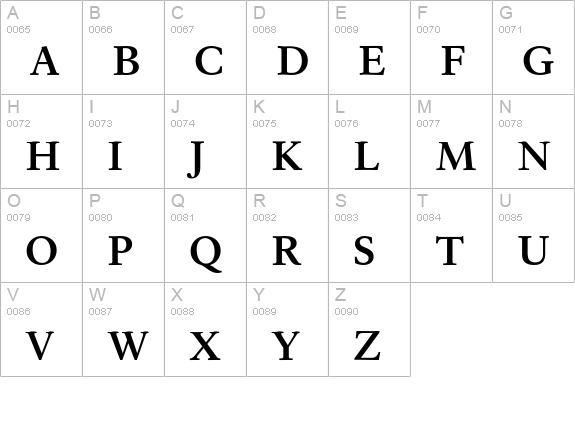
Rawlinson Bold is a strong, high-contrast variant in the Rawlinson typeface family \xE2\x80\x94 well suited to headlines, attention-grabbing titles, and strong calls-to-action.
Rawlinson Bold is a visually striking and versatile typeface that commands attention with its bold and powerful presence. Its strong and clean lines exude confidence and authority, making it an ideal choice for titles, headlines, and logos. With its robust and distinctive letterforms, Rawlinson Bold is designed to make a statement in any design project. Its thick strokes and sharp angles create a sense of strength and solidity, while still maintaining a sense of elegance and sophistication. This font's wide range of characters allows for endless creative possibilities. From bold and impactful designs to sleek and contemporary compositions, Rawlinson Bold has the versatility to adapt to any aesthetic or brand identity. One of the best things about Rawlinson Bold is that it is freely available for download at FontsMarket.com. This means that you can easily access and utilize this stunning typeface without any cost or hassle. Whether you are a professional designer or a creative enthusiast, Rawlinson Bold offers a high-quality and visually appealing option that won't break the bank. So why wait? Give your designs the edge they deserve with Rawlinson Bold. Download this font today from FontsMarket.com and unleash its bold and captivating potential in your next project.